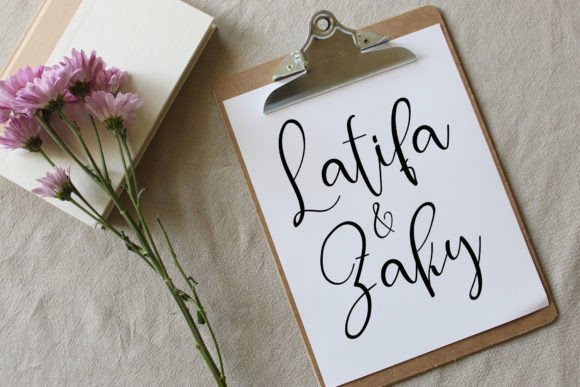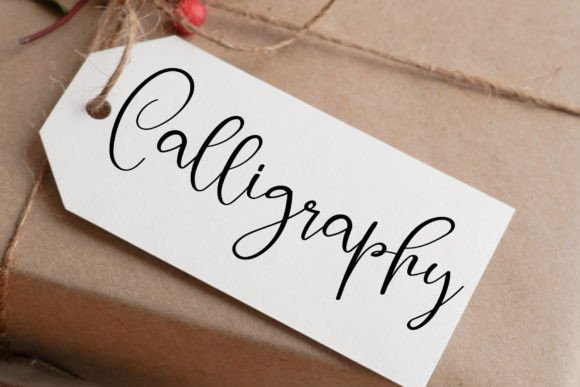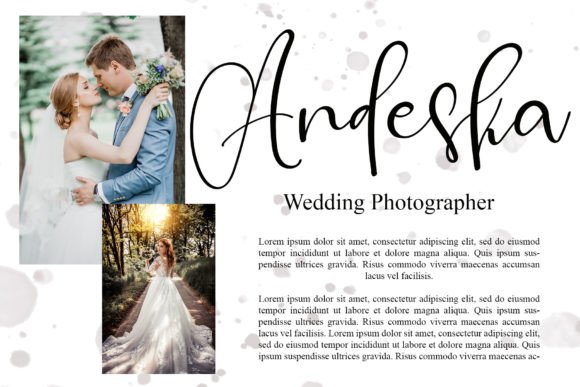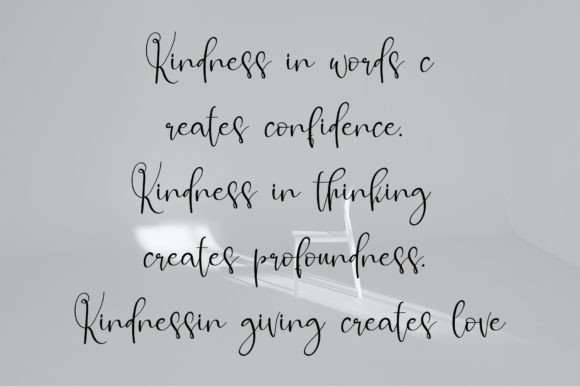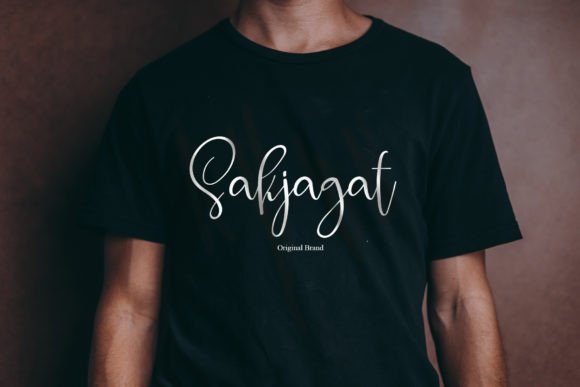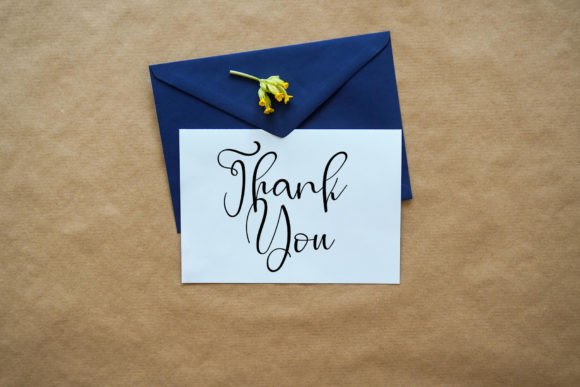
Gathering Font: Elevate Your Designs with a Stylish and Modern Handwritten Touch
In the world of design, fonts play a crucial role in conveying the tone and personality of a project. Whether you’re working on a greeting card, headline, branding, or packaging, the right font can make all the difference. If you’re looking for a stylish and modern handwritten font that can add a touch of happiness to your creations, look no further than Gathering Font.
What is Gathering Font?
Gathering Font is a beautiful, modern handwritten font that is suitable for a wide spectrum of applications. Its stylish and elegant design makes it perfect for designers and crafters who want to add a personal touch to their projects. From greeting cards to headlines, branding, and packaging, Gathering Font is the perfect choice for anyone looking to create something special.
Key Features of Gathering Font
So, what sets Gathering Font apart from other fonts? Here are some of its key features:
- Handwritten Design: Gathering Font has a beautiful, handwritten design that adds a personal touch to any project.
- Modern and Stylish: The font has a modern and stylish design that is perfect for designers and crafters who want to create something unique and eye-catching.
- Versatile: Gathering Font is suitable for a wide spectrum of applications, from greeting cards to headlines, branding, and packaging.
Why Choose Gathering Font?
So, why should you choose Gathering Font for your next project? Here are just a few reasons:
- Add a Personal Touch: Gathering Font adds a personal touch to any project, making it perfect for designers and crafters who want to create something special.
- High-Quality Design: Gathering Font has a high-quality design that is perfect for professional designers and crafters.
- Versatile: The font is suitable for a wide range of applications, making it a great addition to any design library.
Tips and Tricks for Using Gathering Font
Here are just a few tips and tricks for using Gathering Font:
- Experiment with Different Sizes: Experiment with different font sizes to find the perfect size for your project.
- Pair with Other Fonts: Pair Gathering Font with other fonts to create a unique and eye-catching design.
- Use Glyphs and Ligatures: Use the font’s glyphs and ligatures to add a personal touch to your project.
In conclusion, Gathering Font is a stylish and modern handwritten font that is perfect for designers and crafters who want to add a personal touch to their projects. With its PUA encoding, handwritten design, and versatile nature, Gathering Font is a great addition to any design library. Whether you’re working on a greeting card, headline, branding, or packaging, Gathering Font is the perfect choice for anyone looking to create something special.